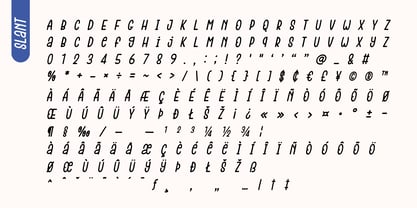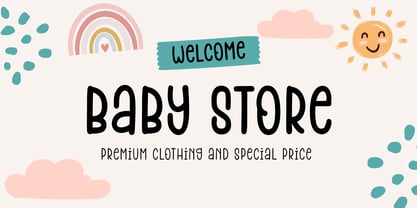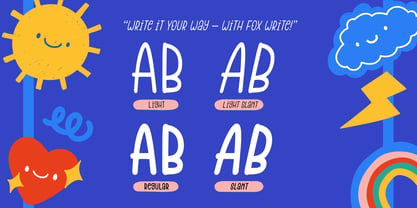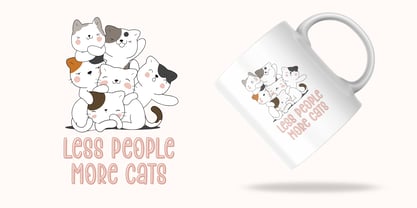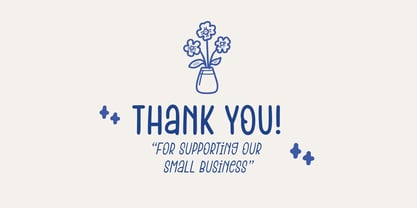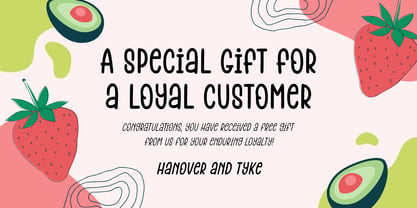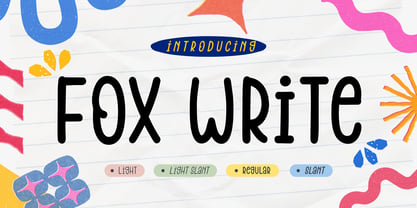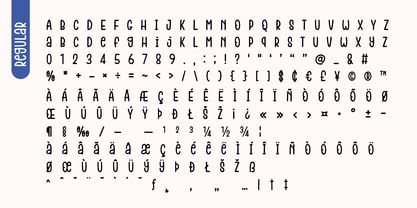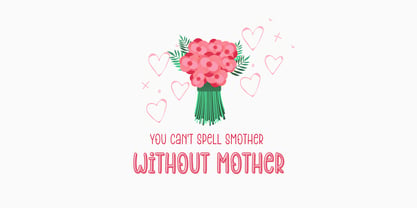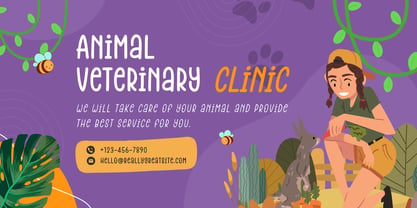
Fox Write
The Fox Write Font Family was designed by Rattana Rattanawan and published by Fox7. Fox Write contains 4 styles and family package options. More about this family
Bring fun and personality to your projects with Fox Write, a cheerful handwritten font that captures the carefree vibe of doodles and everyday notes. Its tall, playful letterforms and quirky details make it perfect for designs that need a casual, friendly touch.
Whether you want a simple hand-drawn look or a more dynamic slanted style, Fox Write gives you the flexibility to write it your way!
Perfect for:
Kids’ projects & school themes
Quotes, posters, and greeting cards
Social media graphics & fun branding
DIY crafts and stickers
With its charming handwritten feel, Fox Write is your go-to font to add joy, warmth, and creativity to any design project.